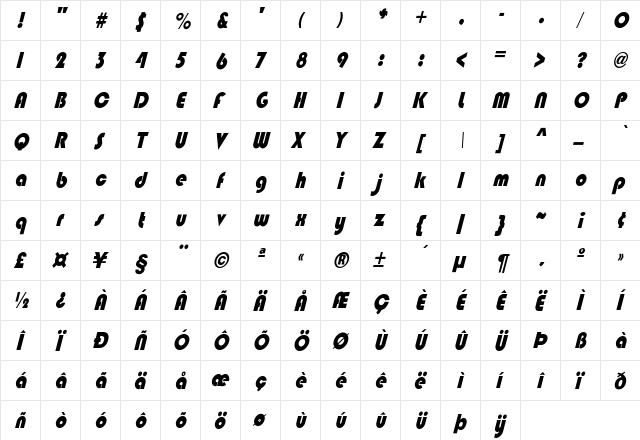
BixleeCndObl-Heavy Regular Font Preview
BixleeCndObl-Heavy Regular
BixleeCndObl-Heavy Regular Font Details
Design Context for BixleeCndObl-Heavy Typeface
BixleeCndObl-Heavy takes a measured approach to typography — its balanced proportions and neutral character make it a reliable workhorse for both digital and print work.